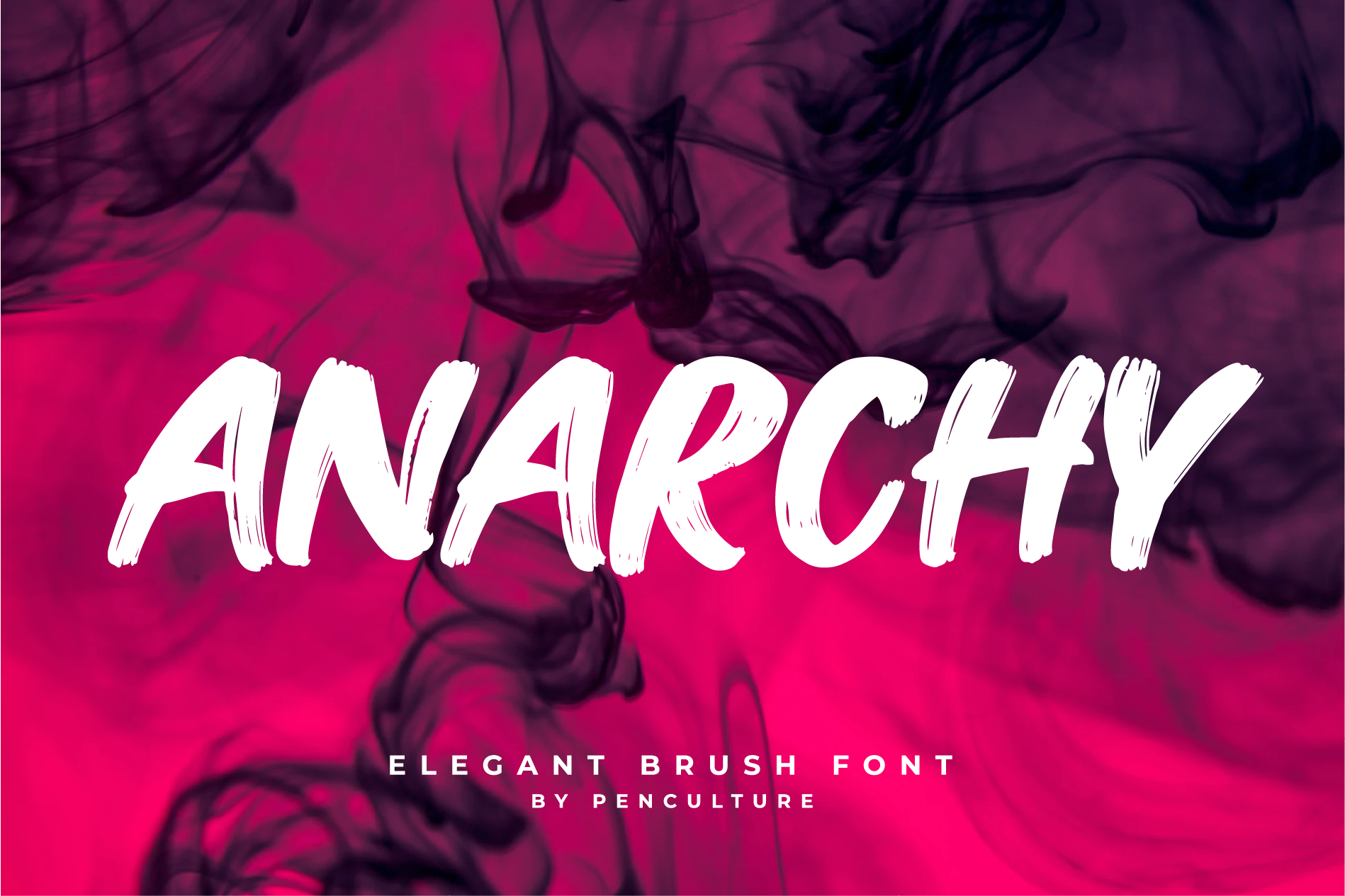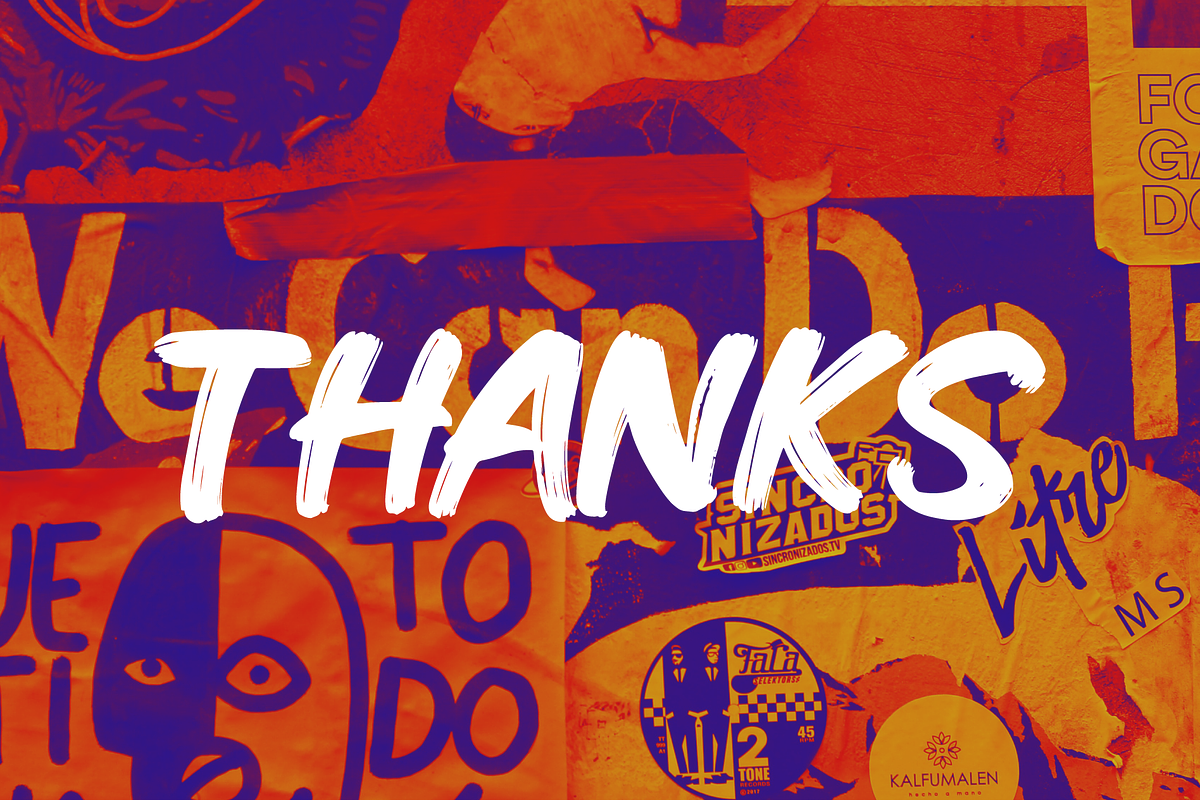
Anarchy Brush Font
Anarchy is a bold brush font. Anarchy have beautiful and natural brush stroke that perfect for logo, poster, product, apparel, packaging and many more. anarchy come with full all caps, number, punctuation. this font very easy to use, so you don't need to worry about having trouble.